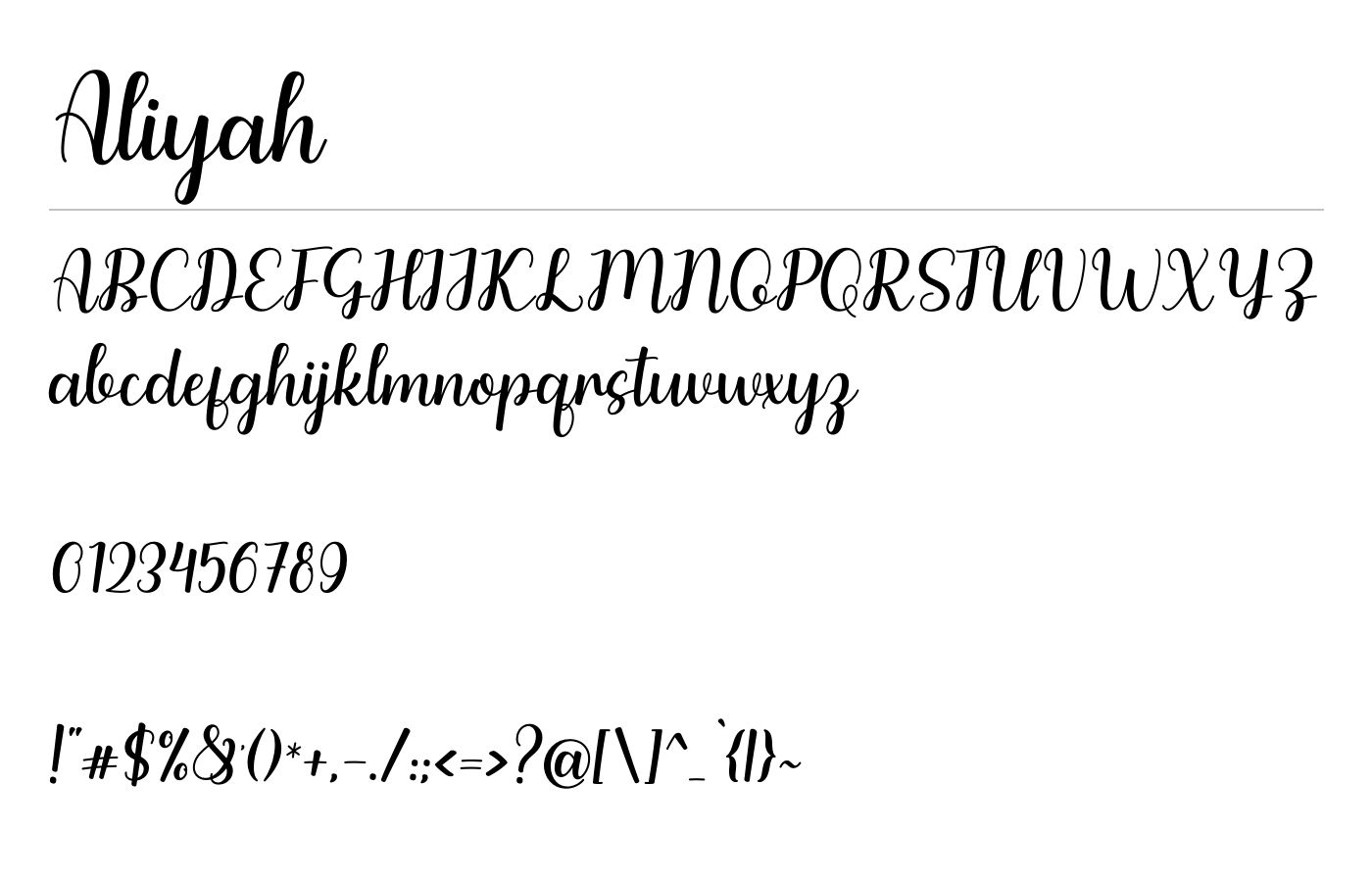
Aliyah is a stylish script font with a smooth, flowing design that blends elegance with a personal touch. Its medium weight and moderate contrast make it both graceful and readable, while its distinctive letterforms and gentle curves lend a refined, handwritten feel perfect for invitations, branding, and fashion-oriented projects. This font works beautifully in headlines and decorative text, adding a sense of charm and sophistication to any design.
Aliyah Font
About Aliyah Font
| Font family | Aliyah Font |
| Designer | Typesthetic Studio - Hamzah Muhamad Ihsan - Jakarta (INA) |